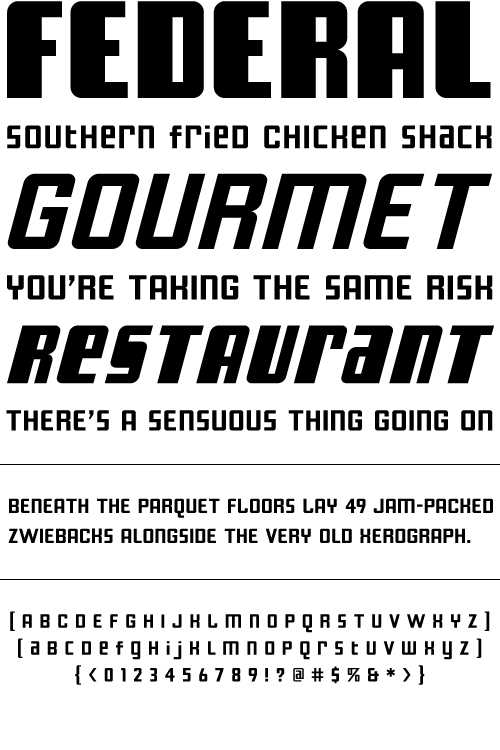
American Gothic
A blocky and bold geometric sans with inner angles and outer curves. No ascenders; lower case characters are as big as the upper case. Mix cases for variety.
Year Designed:
1998
Weights:
Regular, Italic, Black, Black Italic